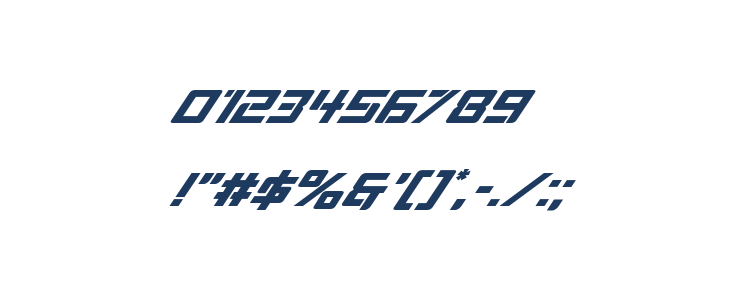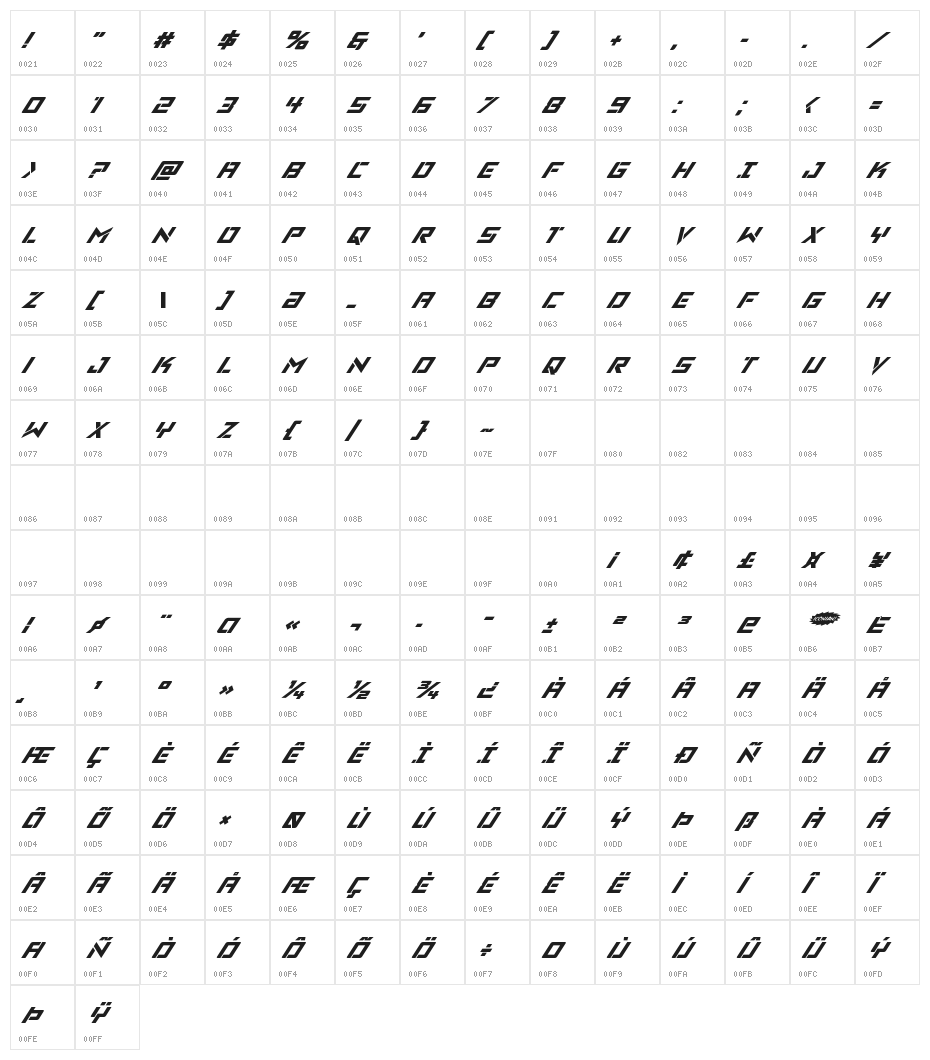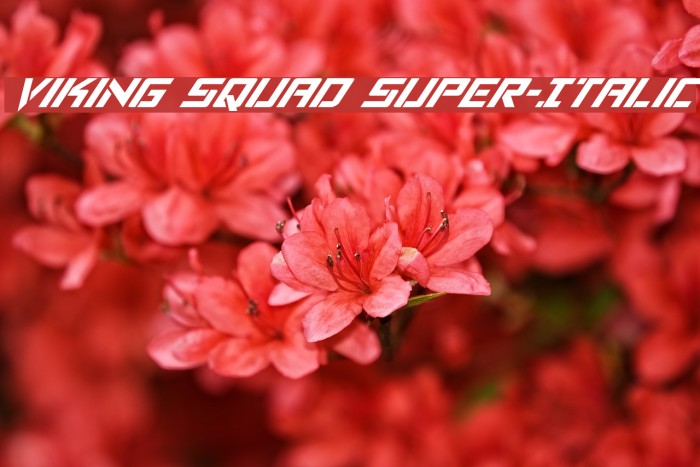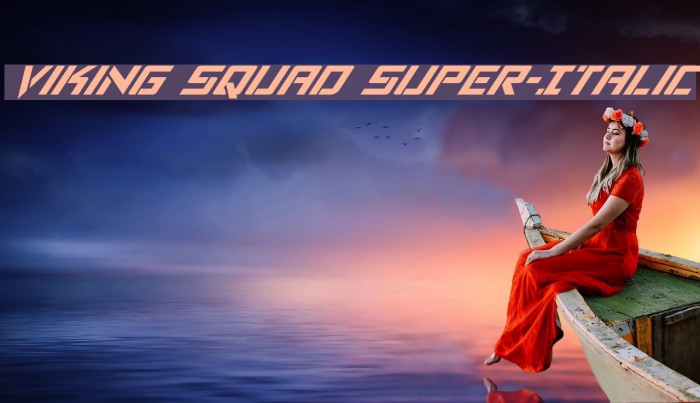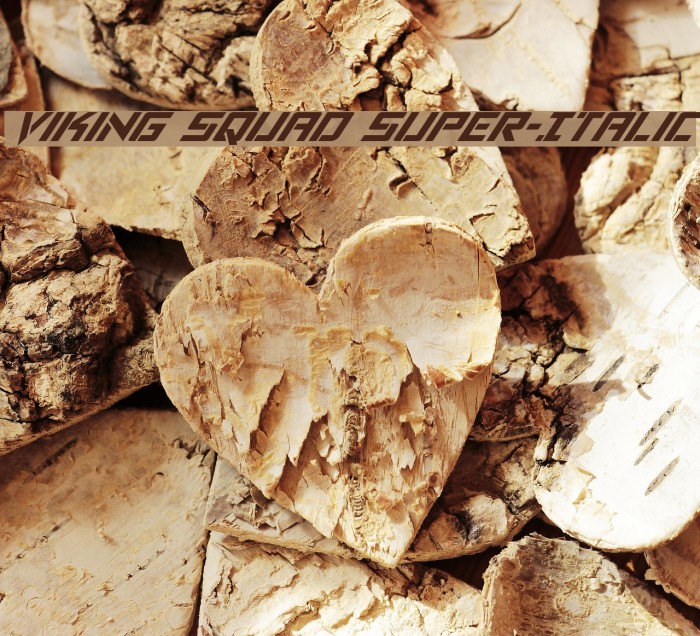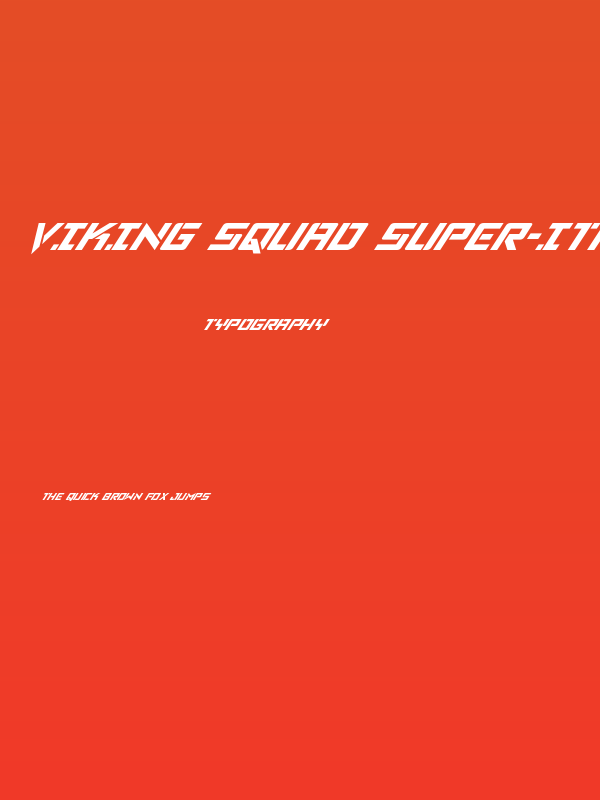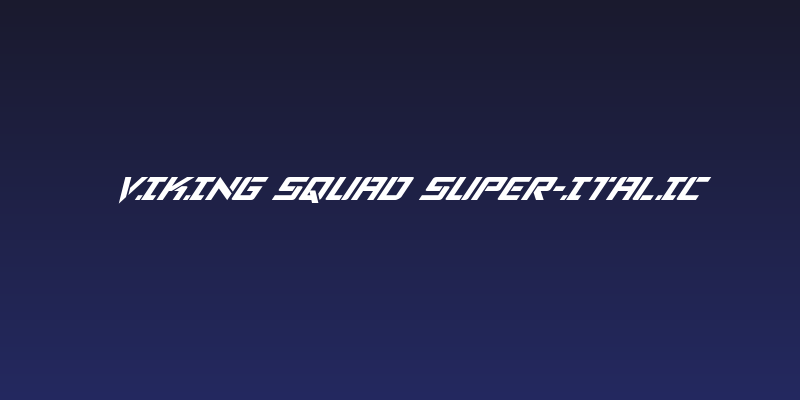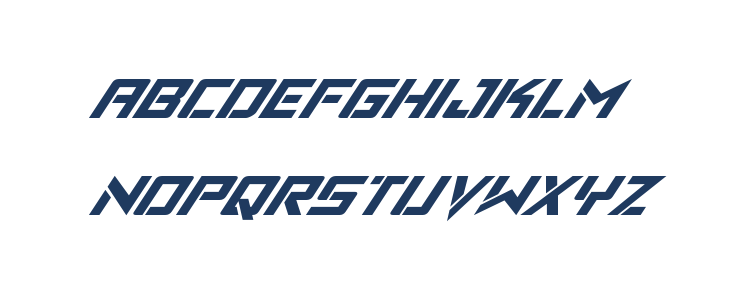
Viking Squad Super-Italic Font
Viking Squad Super-Italic Description
This font features a bold and dynamic design with sharp, angular lines that convey a sense of speed and modernity. The characters are italicized, giving them a forward-leaning posture that enhances their energetic appearance. The uppercase and lowercase letters maintain a consistent style, with unique geometric cuts and edges that add a futuristic touch. The numerals and special characters follow the same design principles, ensuring uniformity across all glyphs. This font's strong visual impact makes it suitable for projects that require a bold statement.